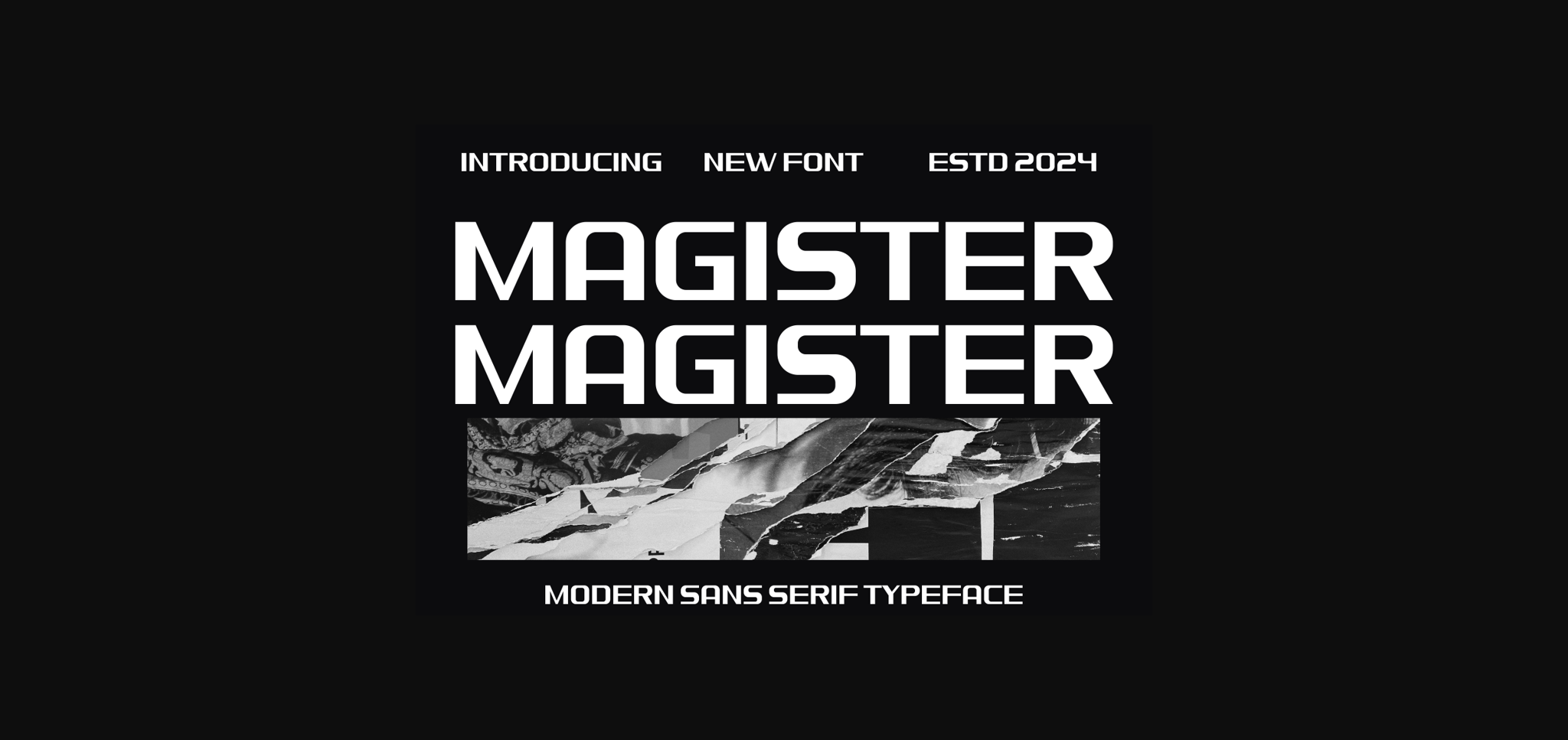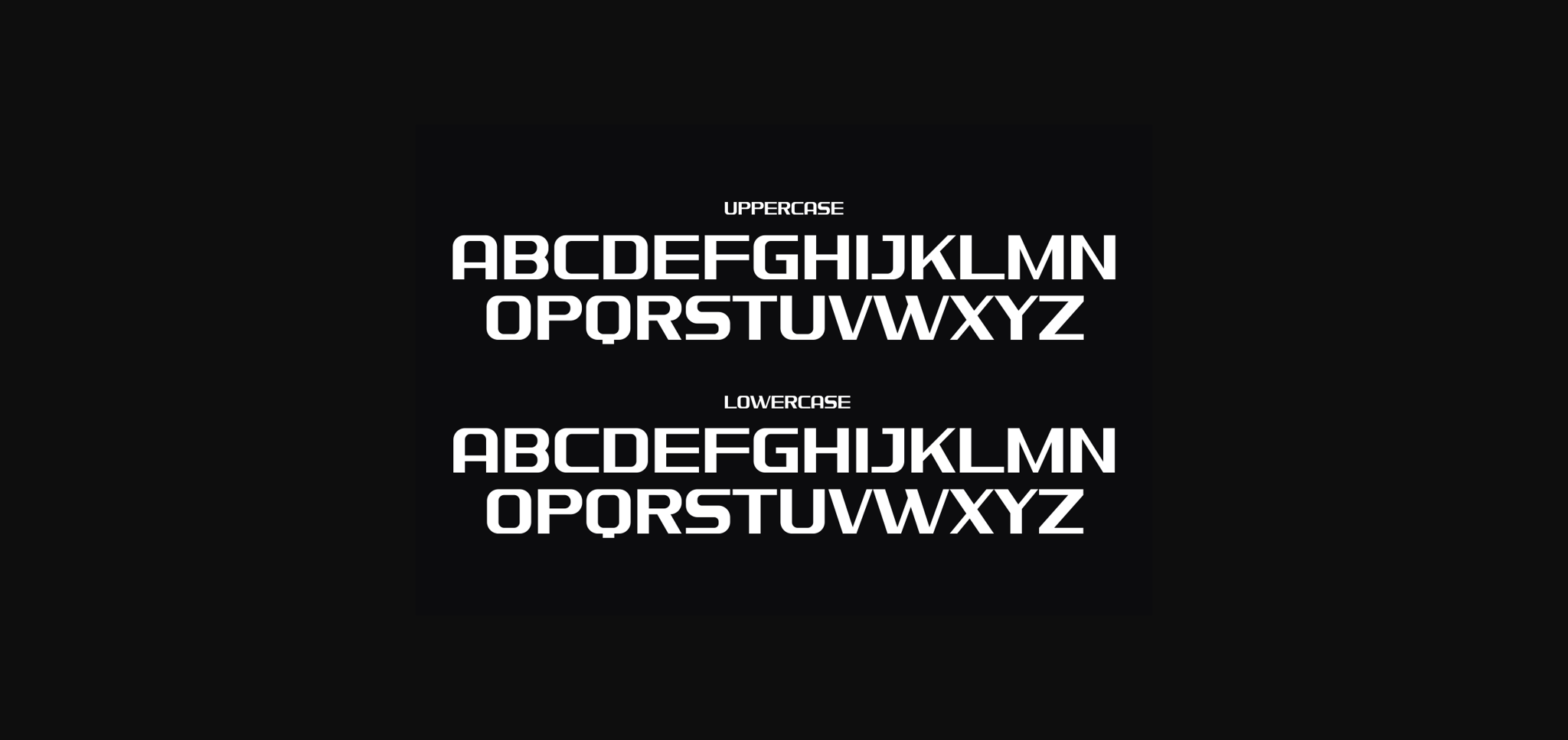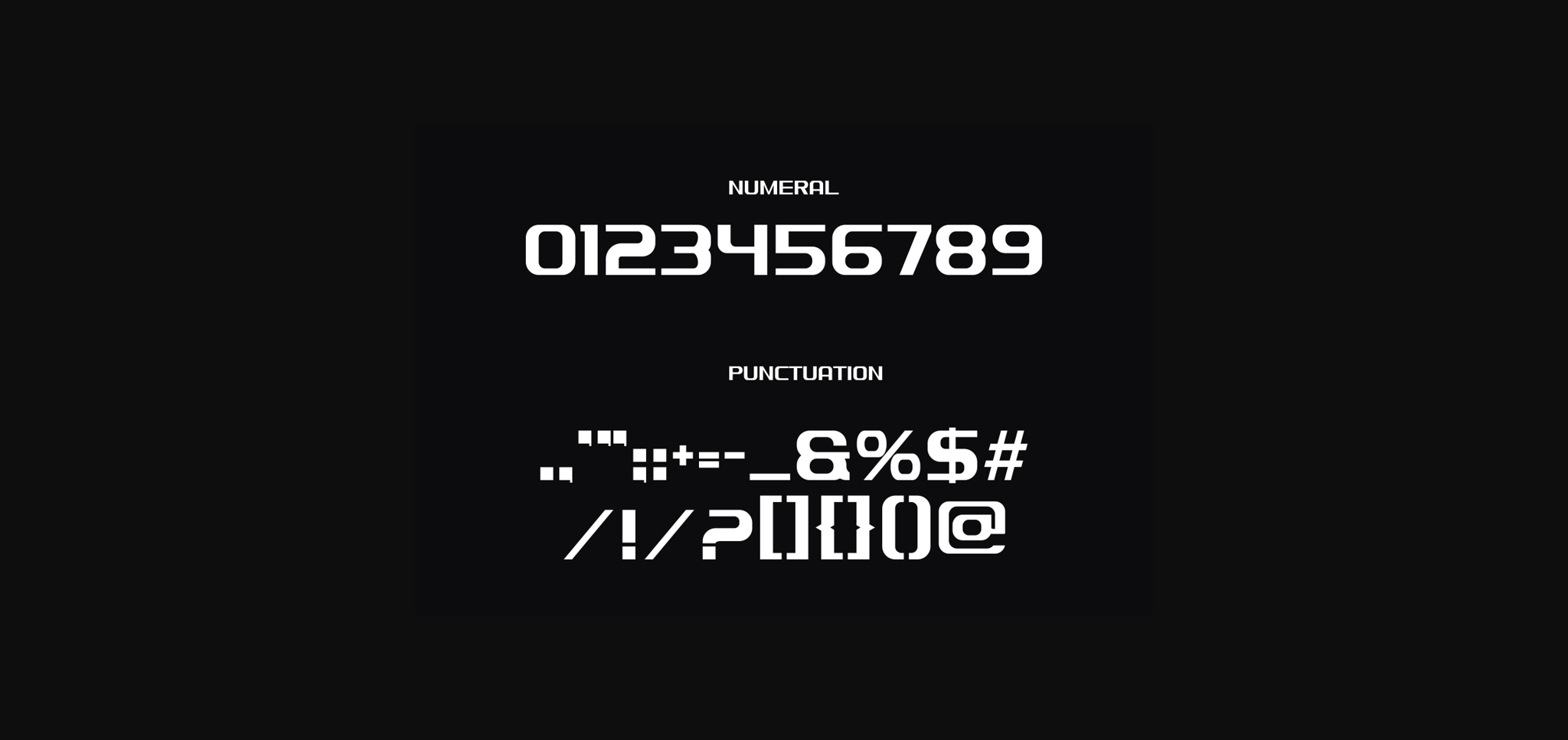
About Magister Font
Magister is an authentic and unique modern sans serif font that is perfect for professional and product branding needs. This font is suitable for any branding project such as quotes, logos, blog headers, posters, ribbons, letters, invitations, stationery, etc… It is designed to be versatile and flexible that can be used on a variety of projects and mediums. extraordinary in a variety of contexts.